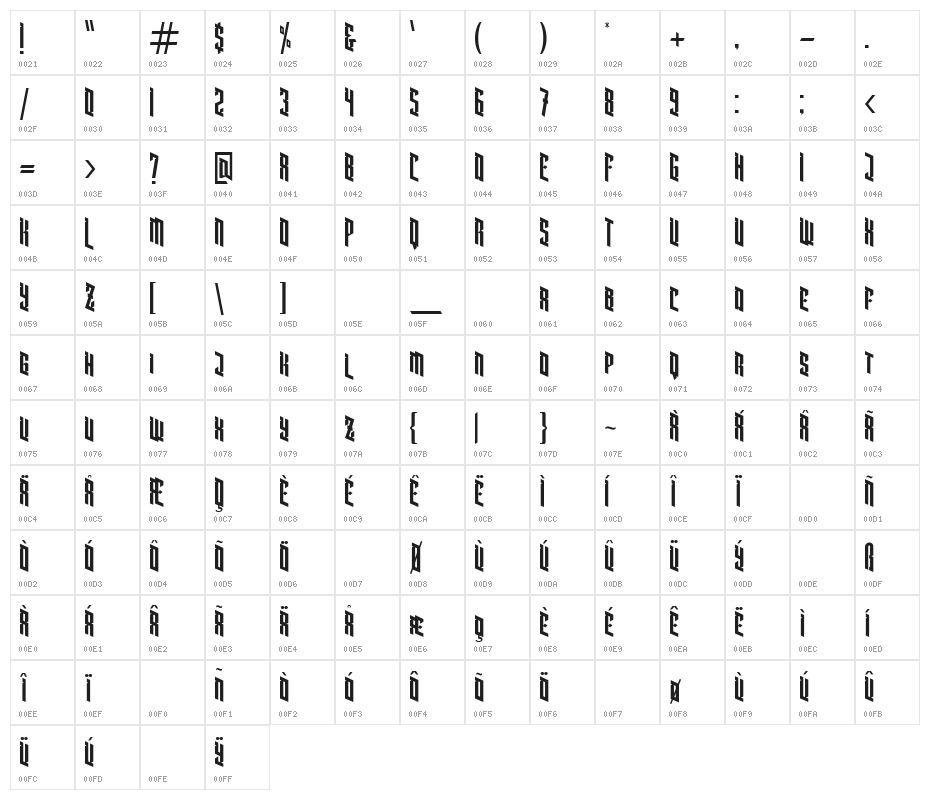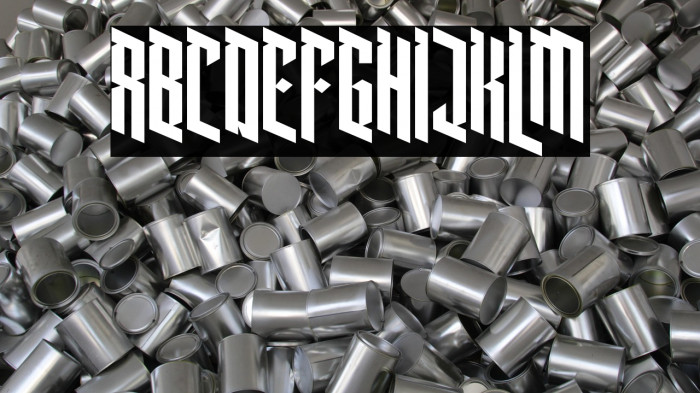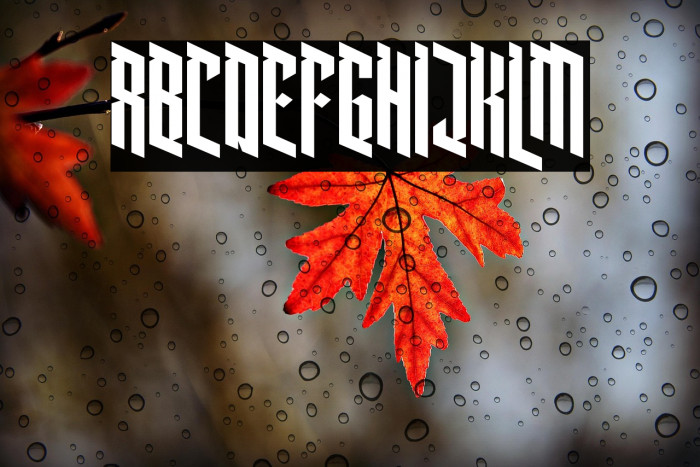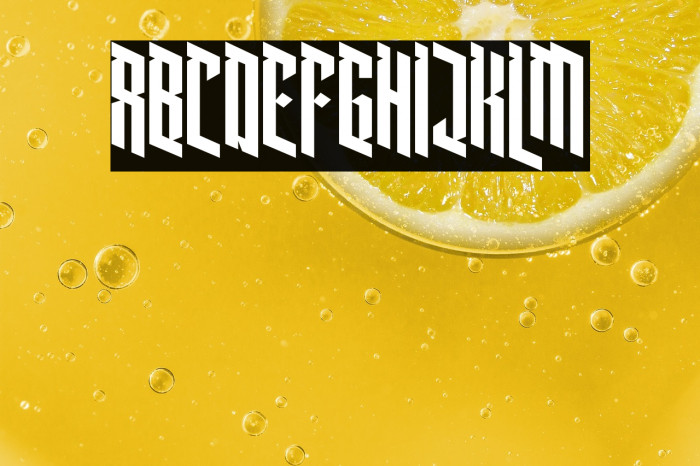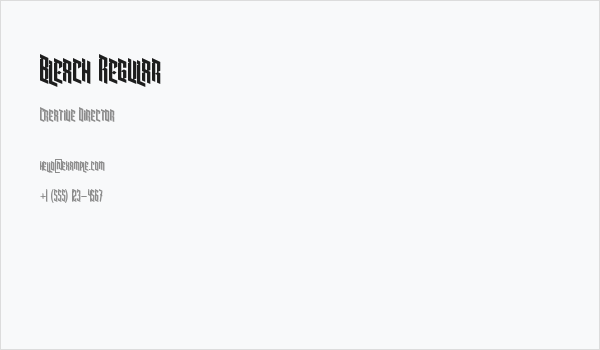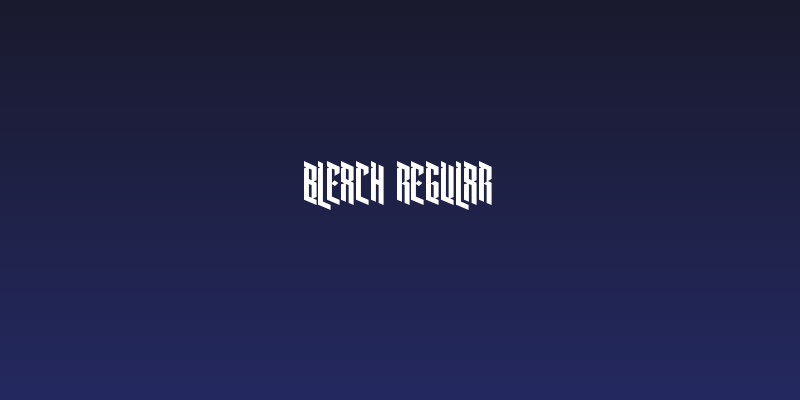
Bleach Regular Font
Bleach Regular Description
This font features a bold, angular design with a strong geometric influence. The characters are sharply defined, with a consistent stroke width that gives a uniform appearance. The uppercase letters are particularly striking, with a futuristic and edgy style that commands attention. The numerals and special characters maintain the same boldness, ensuring a cohesive look across all text elements. The font's design is reminiscent of modern architectural elements, with a sense of movement and dynamism. Its unique style makes it suitable for projects that require a standout, impactful typeface.
| Proposed Projects | Ideal for branding, posters, album covers, and any project needing a strong visual impact. |